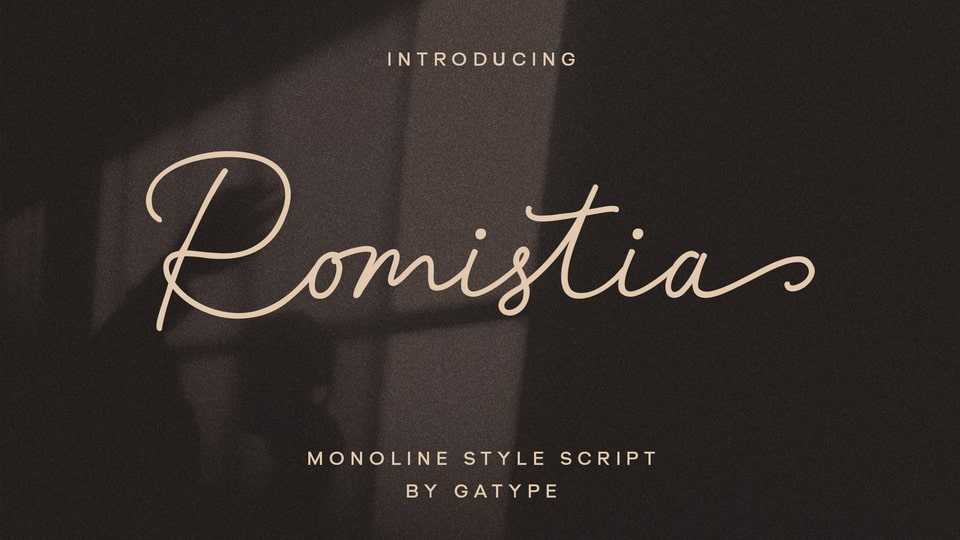
Download Romistia font, a monoline script style with an elegant and artistic appearance. The design resembles fine handwriting with neat strokes and a luxurious impression.